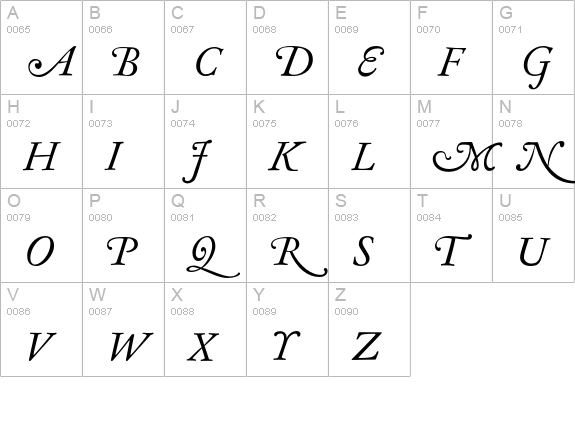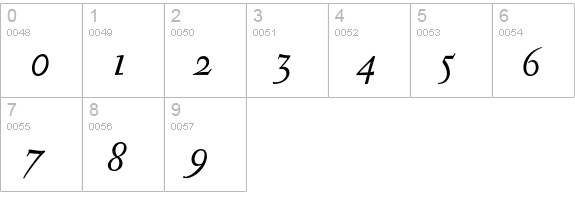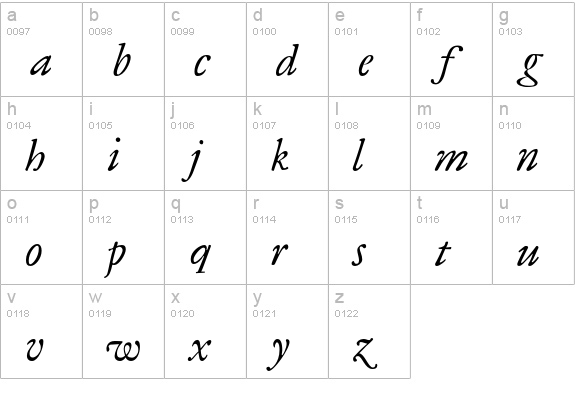
AntiqueAncienne-Italic Font Details
AntiqueAncienne-Italic is a distinctive, italic variant in the AntiqueAncienne typeface family \xE2\x80\x94 well suited to design and typography projects.
AntiqueAncienne-Italic is a timeless and elegant font that exudes a sense of vintage charm and sophistication. With its graceful curves and delicate serifs, this font is perfect for adding a touch of old-world elegance to your designs. The italic style adds a sense of flair and refinement to any project, making it ideal for invitations, branding, and editorial design. The best part? AntiqueAncienne-Italic is available for free download at FontsMarket.com. Simply head to the website to access this beautiful font and elevate your designs with its timeless appeal. Don't miss out on the opportunity to add AntiqueAncienne-Italic to your font collection and bring a touch of classic beauty to your creative projects.